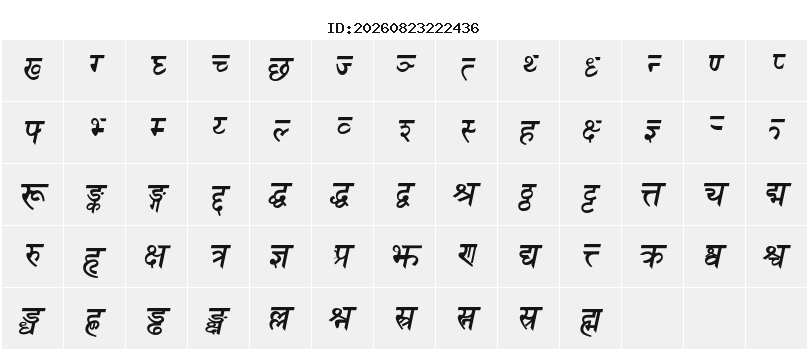
Sanskrit Preview
• Font Name: Sanskrit
• Font Style: BoldItalic
• Full Font Name: Sanskrit BoldItalic
About Sanskrit.ttf
Sanskrit.ttf is a modern, elegant sans-serif font designed for ultimate readability and visual harmony. Perfect for branding, headlines, web design, and print materials.